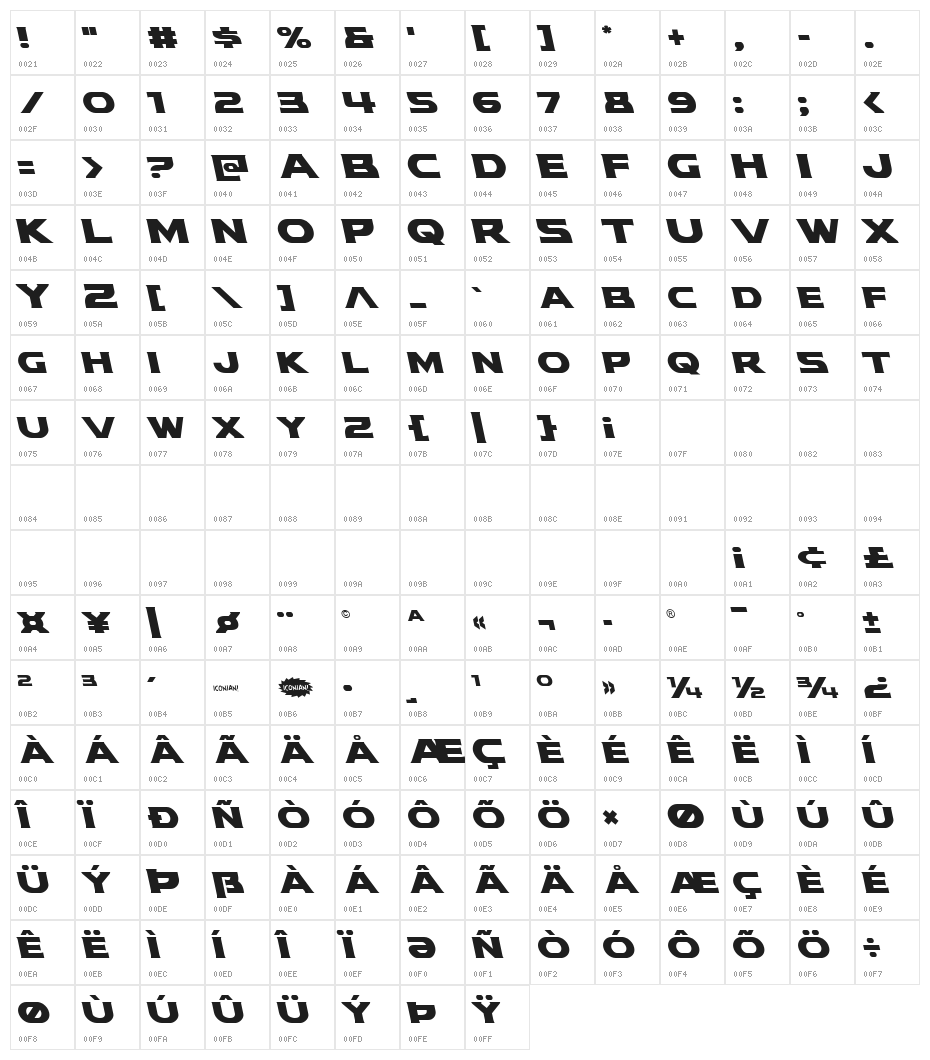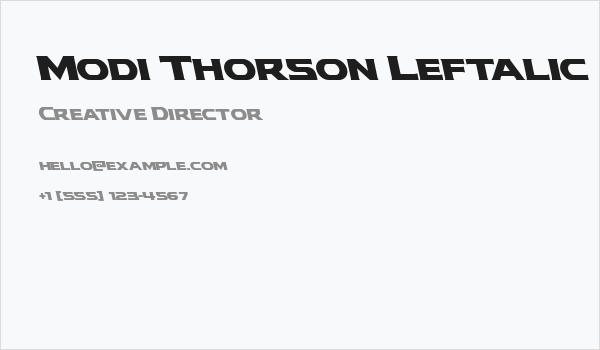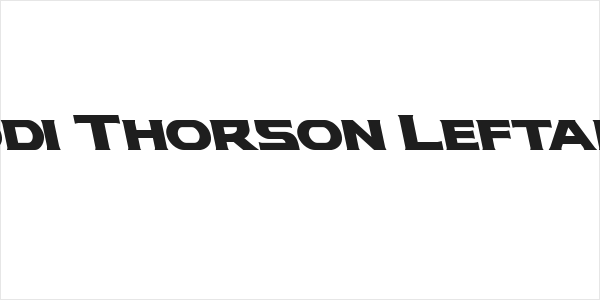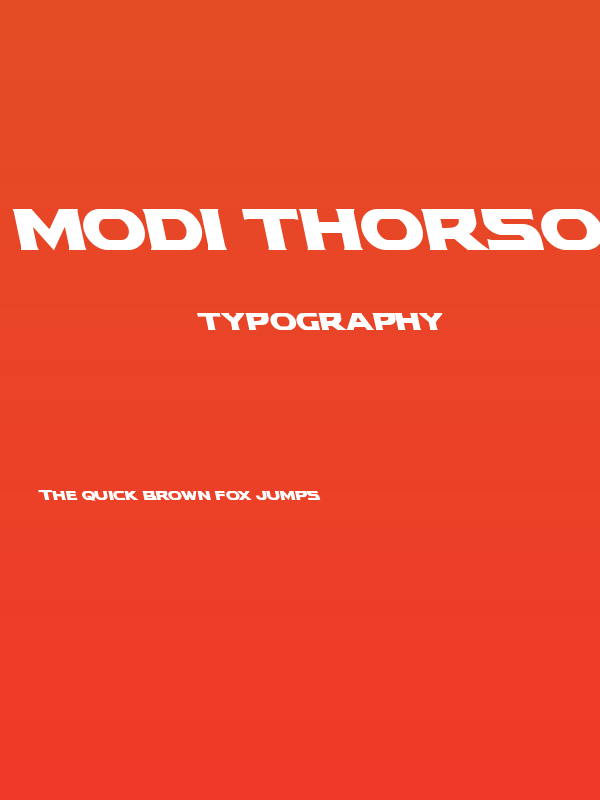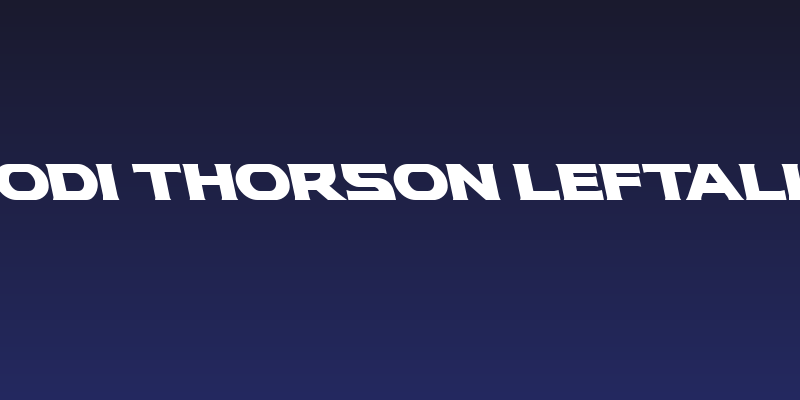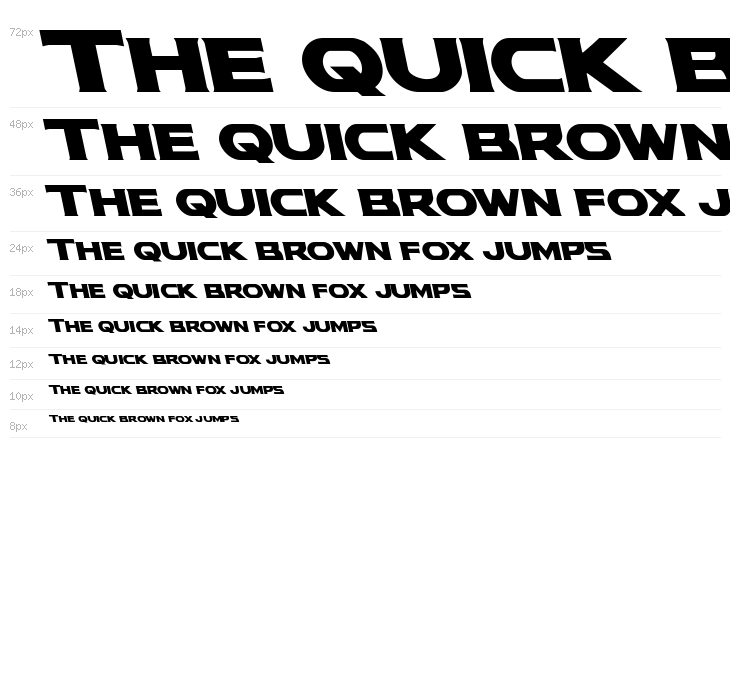
Modi Thorson Leftalic Font
Modi Thorson Leftalic Description
This font features a bold, angular design with a futuristic and dynamic appearance. The characters are slanted, giving a sense of motion and energy. The strokes are thick and consistent, creating a strong visual impact. The geometric shapes and sharp edges contribute to its modern and aggressive style. The font maintains a uniform width across all characters, enhancing its bold and assertive look. The special characters are designed to match the overall aesthetic, with similar angular and bold features.
Overall StyleFuturistic
Proposed ProjectsIdeal for sci-fi themed projects, video game titles, sports branding, and dynamic posters.